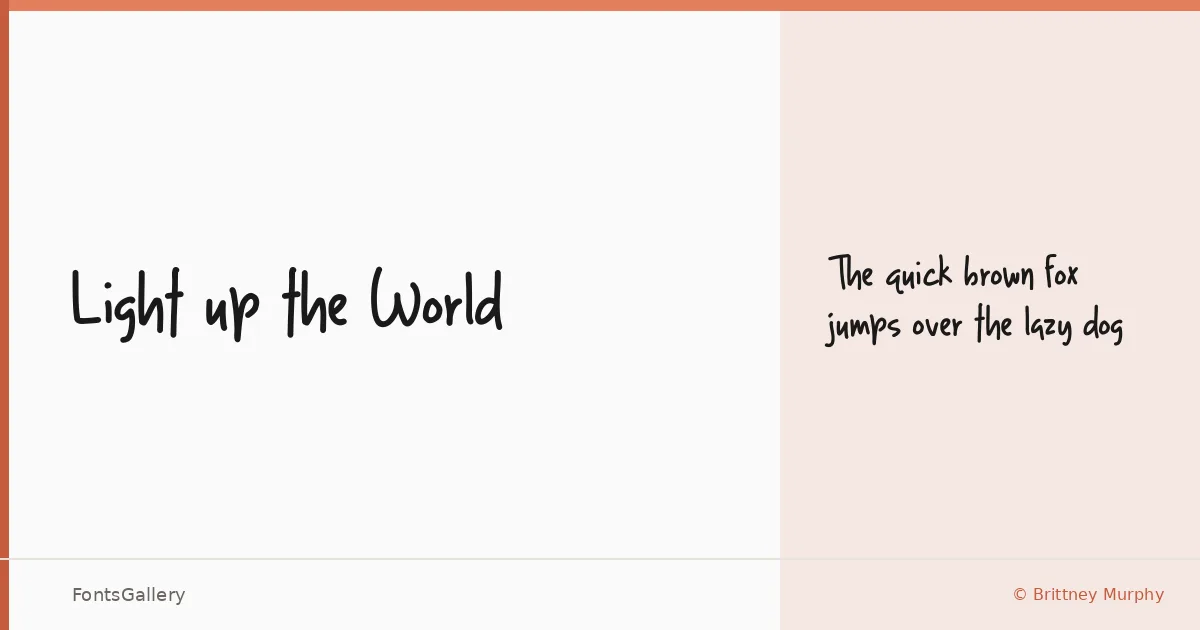
About Light up the World Font
There is a loose, bouncing energy to this script — letters that feel like they were written quickly, with genuine enthusiasm rather than careful draftsmanship. Brittney Murphy designed it with a handwritten warmth that sits somewhere between a personal note and a polished brush lettering piece. The single Regular cut keeps things focused: one expressive voice, no hedging.
This is a handwritten face that leans into the playful and romantic end of the mood spectrum — whimsical without tipping into chaos, modern enough to read well at display sizes. The letterforms carry natural variation in stroke weight and baseline rhythm, which gives any short run of text an organic, hand-crafted quality. It ships as a TTF file covering Latin, so character support is straightforward for Western European copy.
The script earns its keep on greeting cards, invitation cards, and social media graphics where a personal touch matters more than neutral authority — children's book covers and event posters are equally natural homes. For contrast, the clean geometry of Helvetica or the refined editorial weight of Canela makes a reliable counterpart, while AQUA, Etna, and ABC Arizona offer more character-forward options when you want the pairing itself to feel curated.